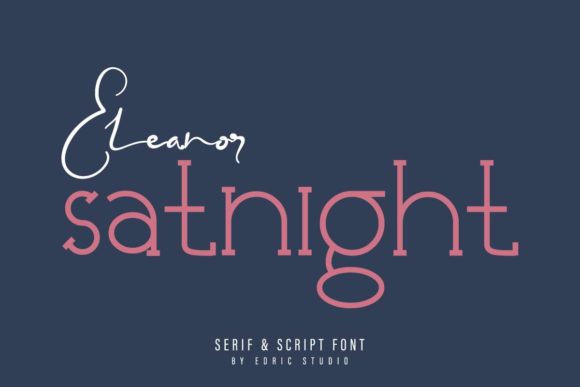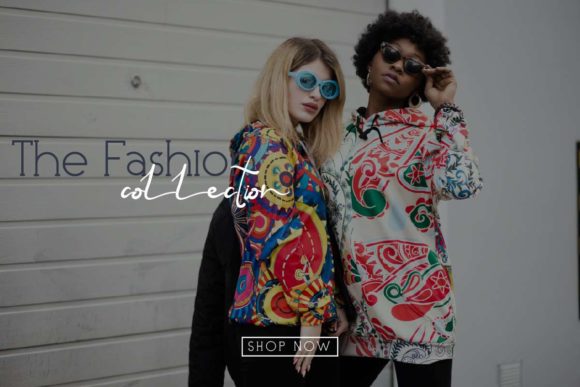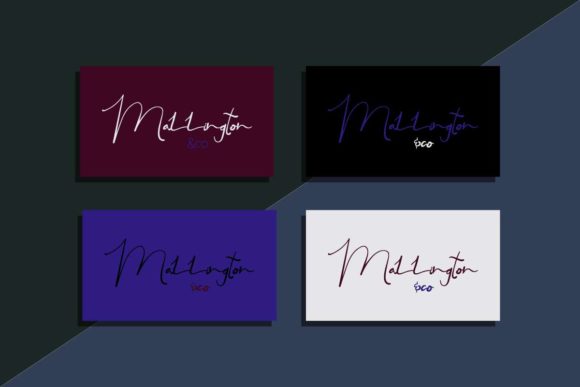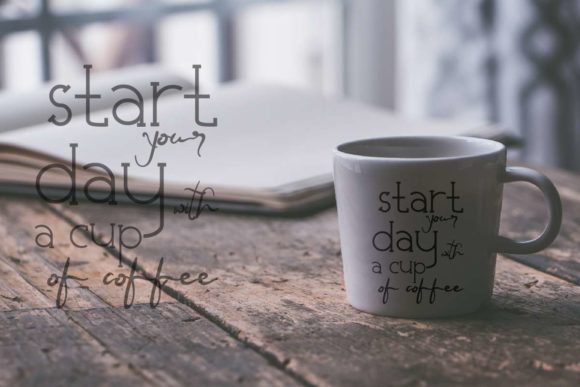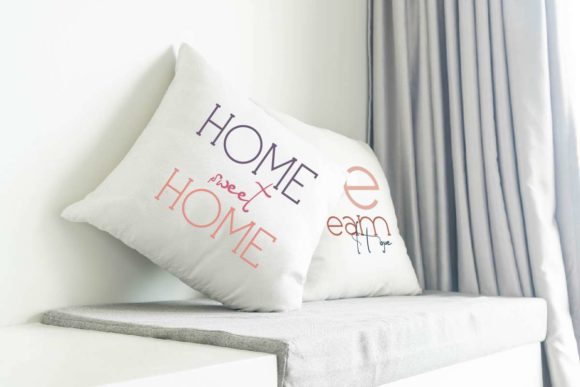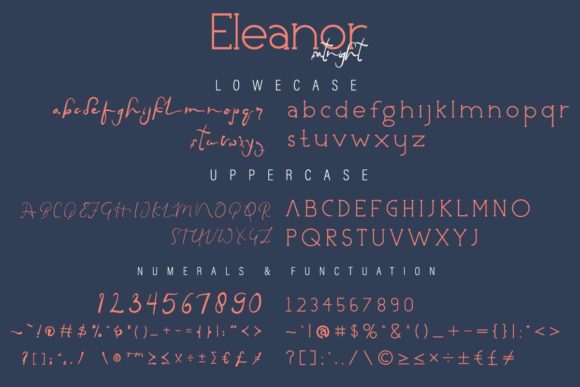
Eleanor Satnight Font: Elevate Your Designs with this Stunning Duo
Are you tired of using the same old fonts in your designs? Look no further than the Eleanor Satnight Font, a spectacular duo font that combines the elegance of serif and script fonts. This incredibly versatile font is perfect for designers and crafters looking to take their creative projects to the next level.
What is Eleanor Satnight Font?
Eleanor Satnight Font is a unique duo font that consists of two complementary fonts: a serif font and a script font. The serif font is perfect for headings, titles, and body text, while the script font adds a touch of elegance and sophistication to any design. The combination of these two fonts creates a stunning visual effect that is sure to capture the attention of your audience.
Key Features of Eleanor Satnight Font
- Versatility: Eleanor Satnight Font is incredibly versatile and can be used in a wide range of designs, from elegant wedding invitations to modern branding and advertising.
- Unique Duo: The font duo consists of a serif font and a script font, allowing you to mix and match to create a unique look.
- Elegant and Sophisticated: The script font adds a touch of elegance and sophistication to any design, while the serif font provides a solid foundation.
- Easy to Read: The serif font is easy to read, making it perfect for body text, while the script font is perfect for headings and titles.
How to Use Eleanor Satnight Font
Eleanor Satnight Font is easy to use and can be incorporated into your designs in a variety of ways. Here are a few ideas to get you started:
- Wedding Invitations: Use the script font for the invitation and the serif font for the details, such as date, time, and location.
- Branding and Advertising: Use the serif font for body text and the script font for headings and titles to create a modern and sophisticated look.
- Signage and Posters: Use the duo font to create eye-catching signage and posters that are sure to grab attention.
Benefits of Using Eleanor Satnight Font
There are many benefits to using Eleanor Satnight Font in your designs. Here are a few:
- Stand Out: The unique duo font will help your designs stand out from the crowd and grab attention.
- Elegance and Sophistication: The script font adds a touch of elegance and sophistication to any design.
- Versatility: The font duo can be used in a wide range of designs, from elegant to modern.
- Easy to Read: The serif font is easy to read, making it perfect for body text.
Tips and Tricks for Using Eleanor Satnight Font
Here are a few tips and tricks for using Eleanor Satnight Font:
- Experiment with Different Sizes: Experiment with different sizes and combinations of the serif and script fonts to create a unique look.
- Use for Headings and Titles: Use the script font for headings and titles to add a touch of elegance and sophistication.
- Pair with Other Fonts: Pair Eleanor Satnight Font with other fonts to create a unique and interesting look.
Eleanor Satnight Font is a spectacular duo font that is perfect for designers and crafters looking to elevate their creative projects to the next level. With its versatility, elegance, and sophistication, this font duo is sure to capture the attention of your audience. Whether you’re creating wedding invitations, branding and advertising, or signage and posters, Eleanor Satnight Font is the perfect choice.